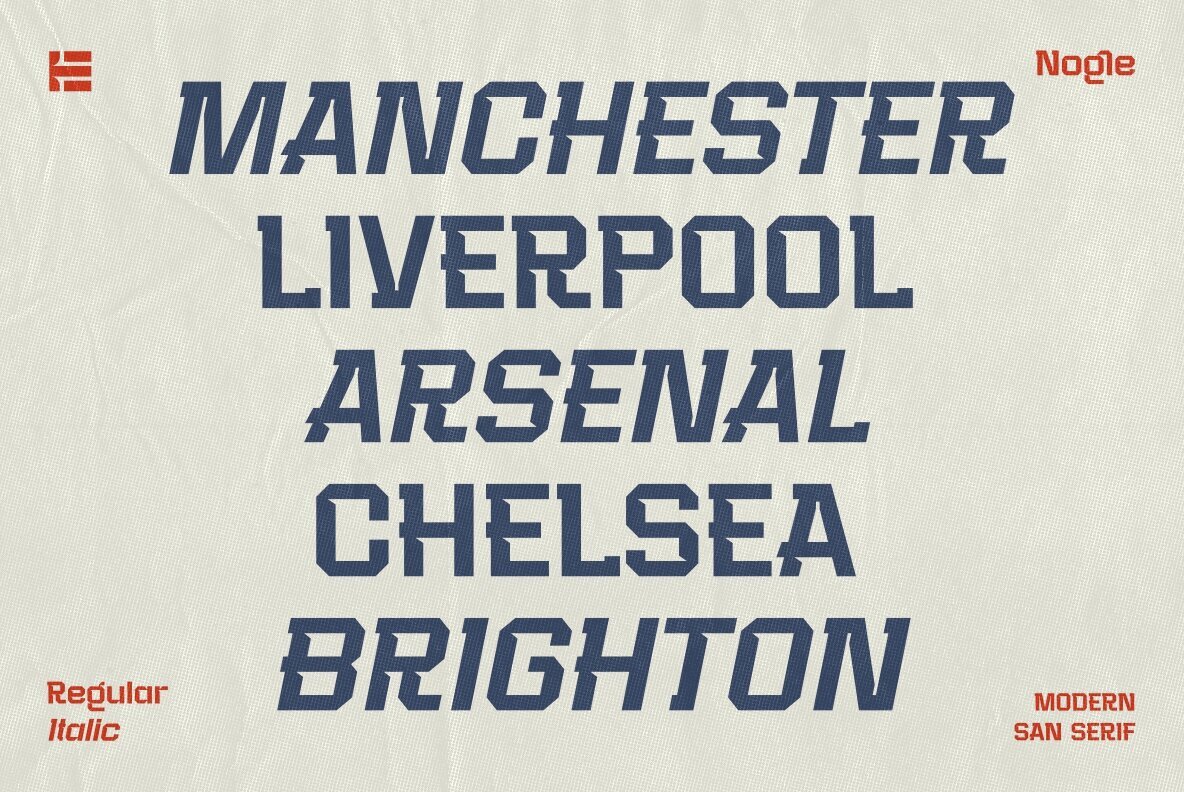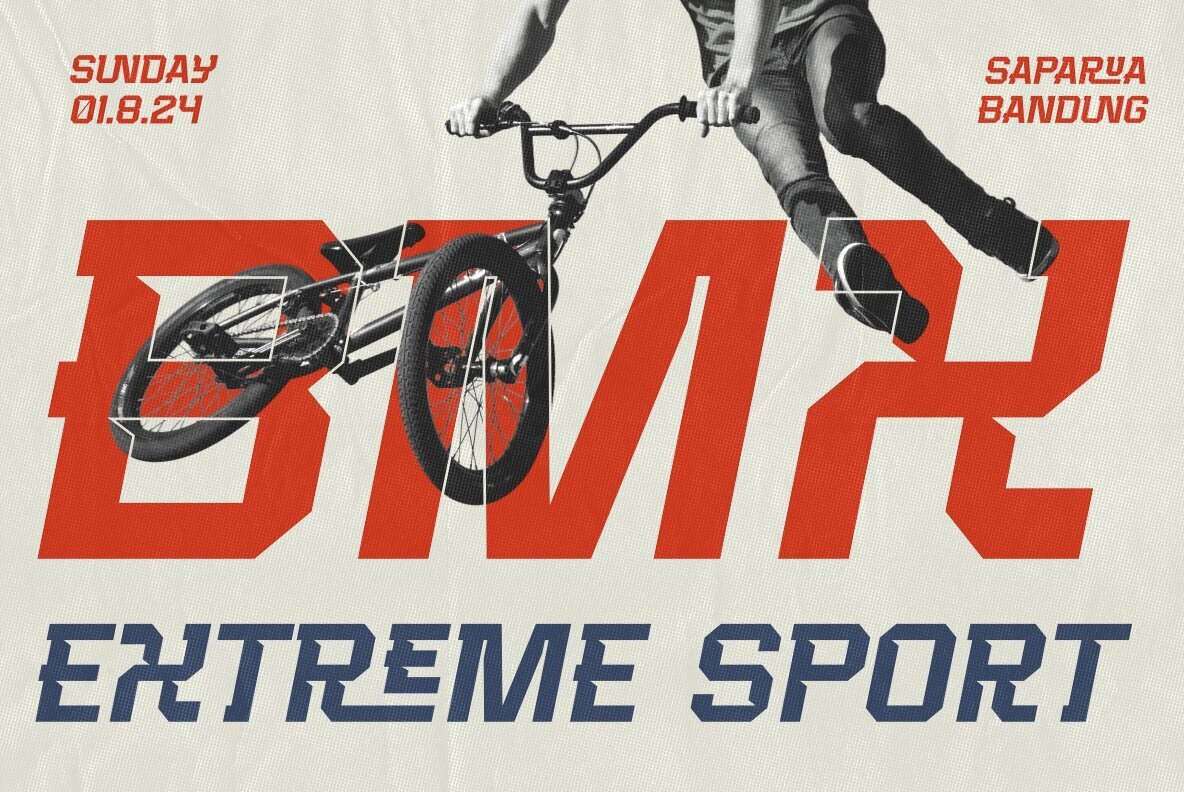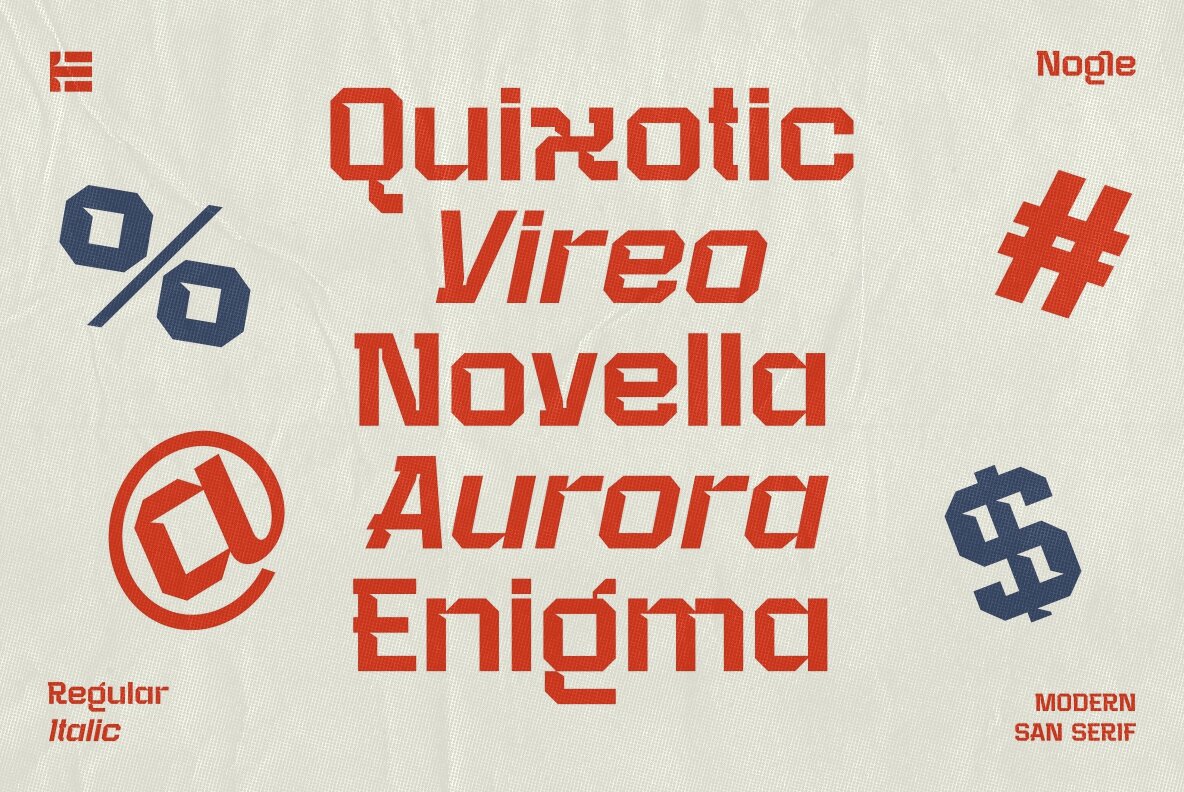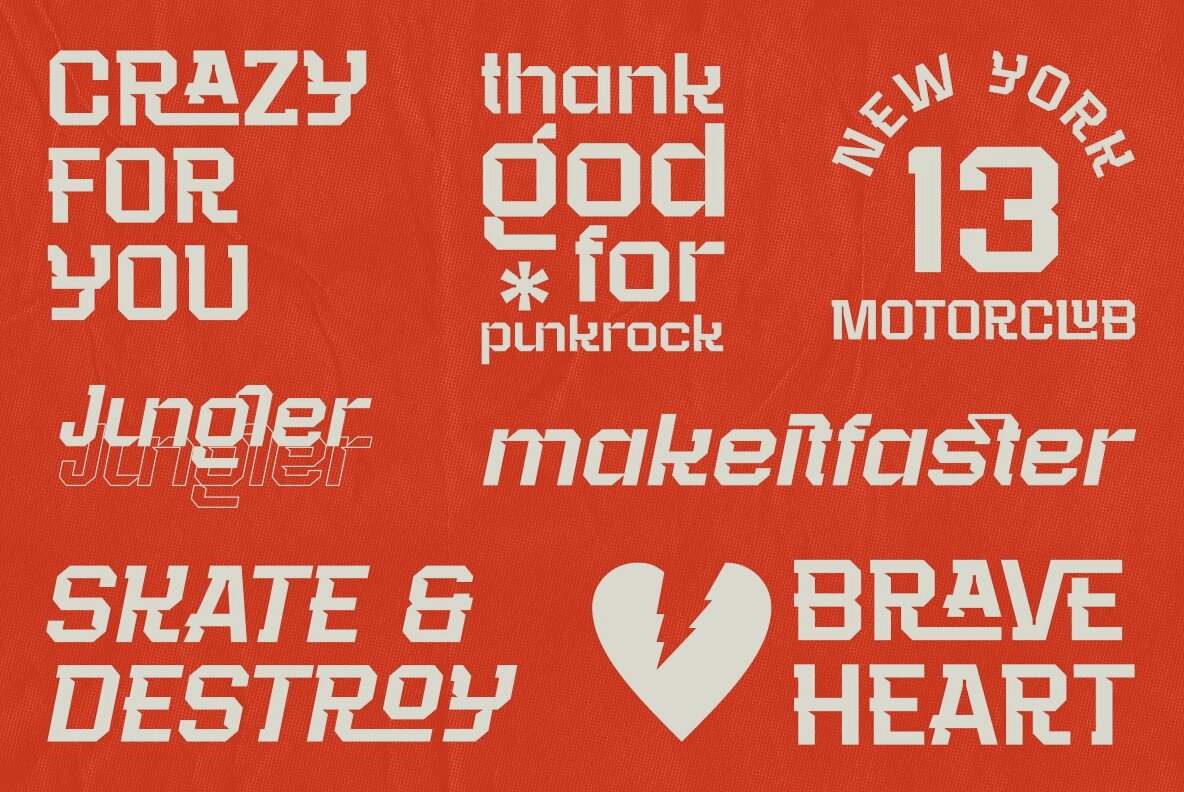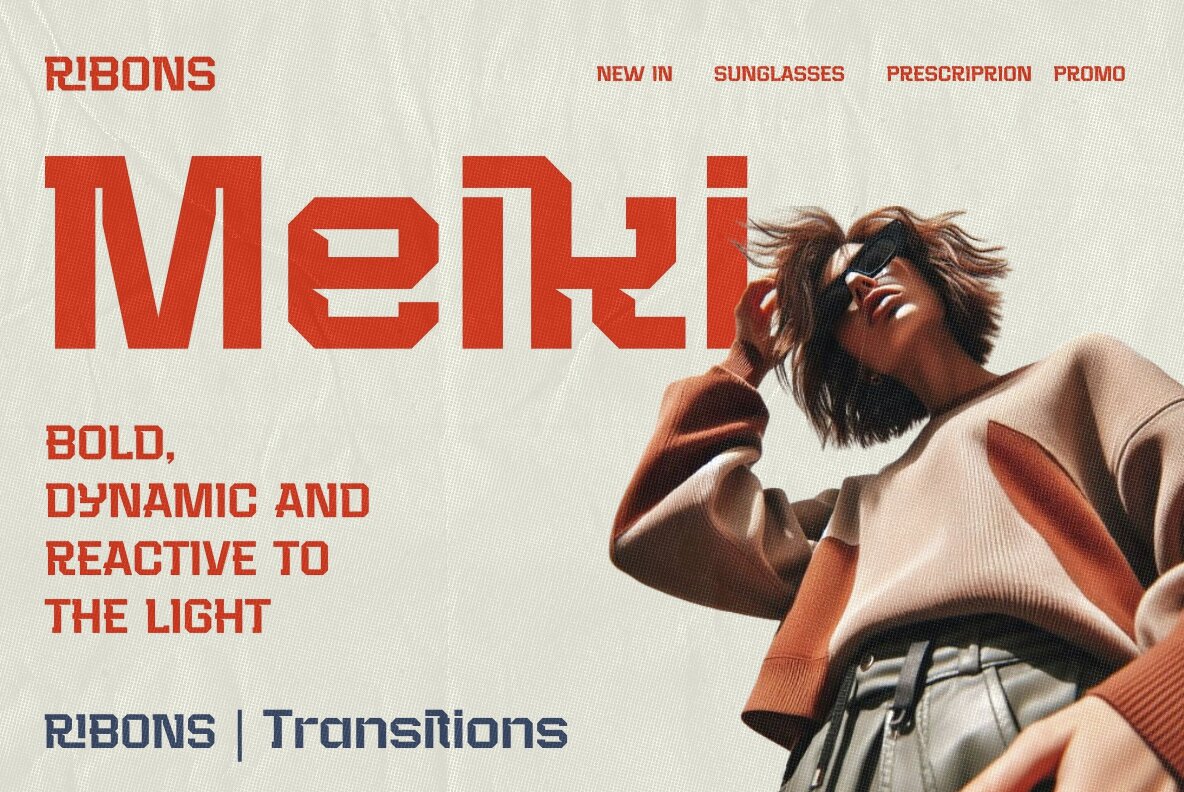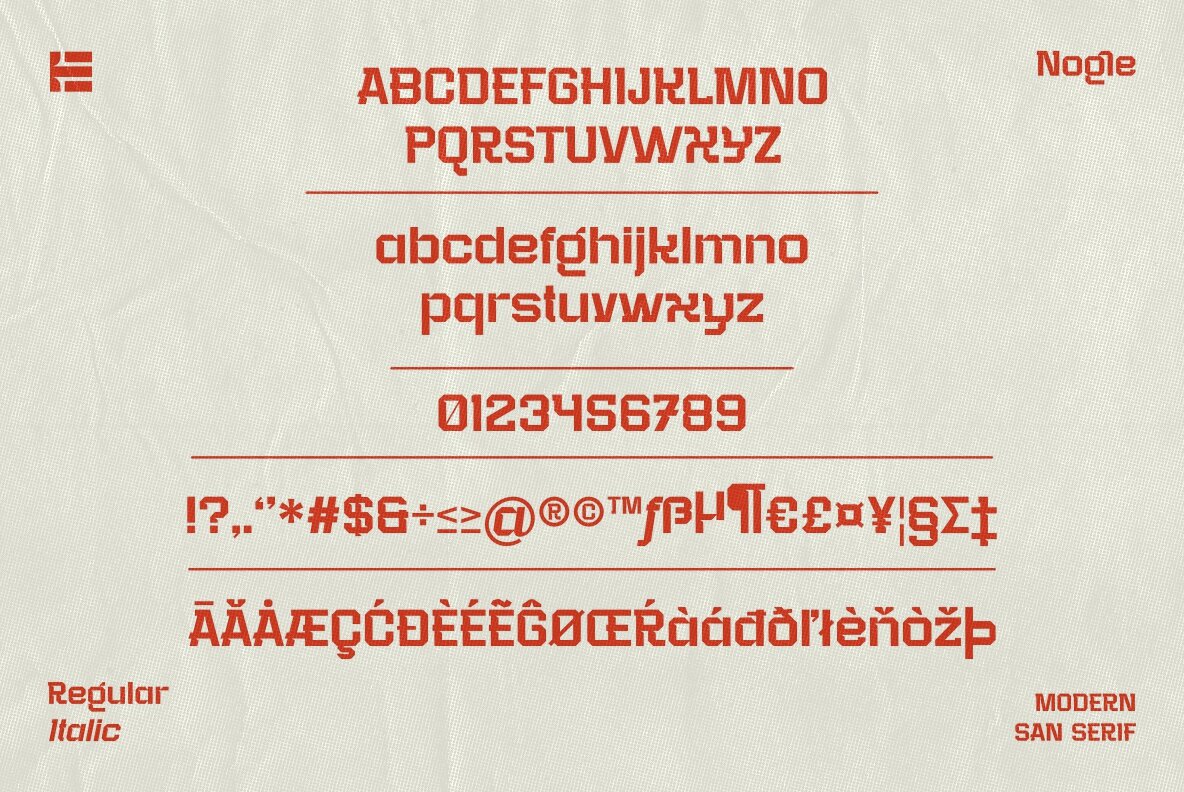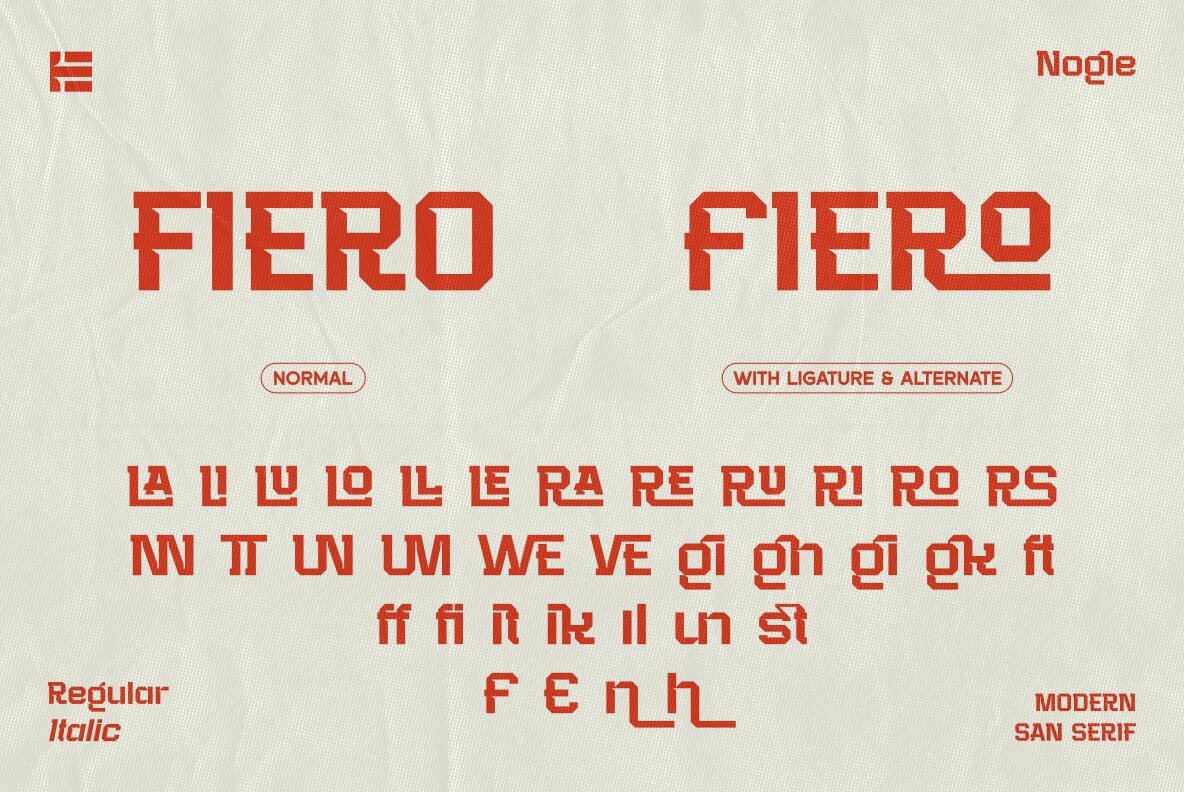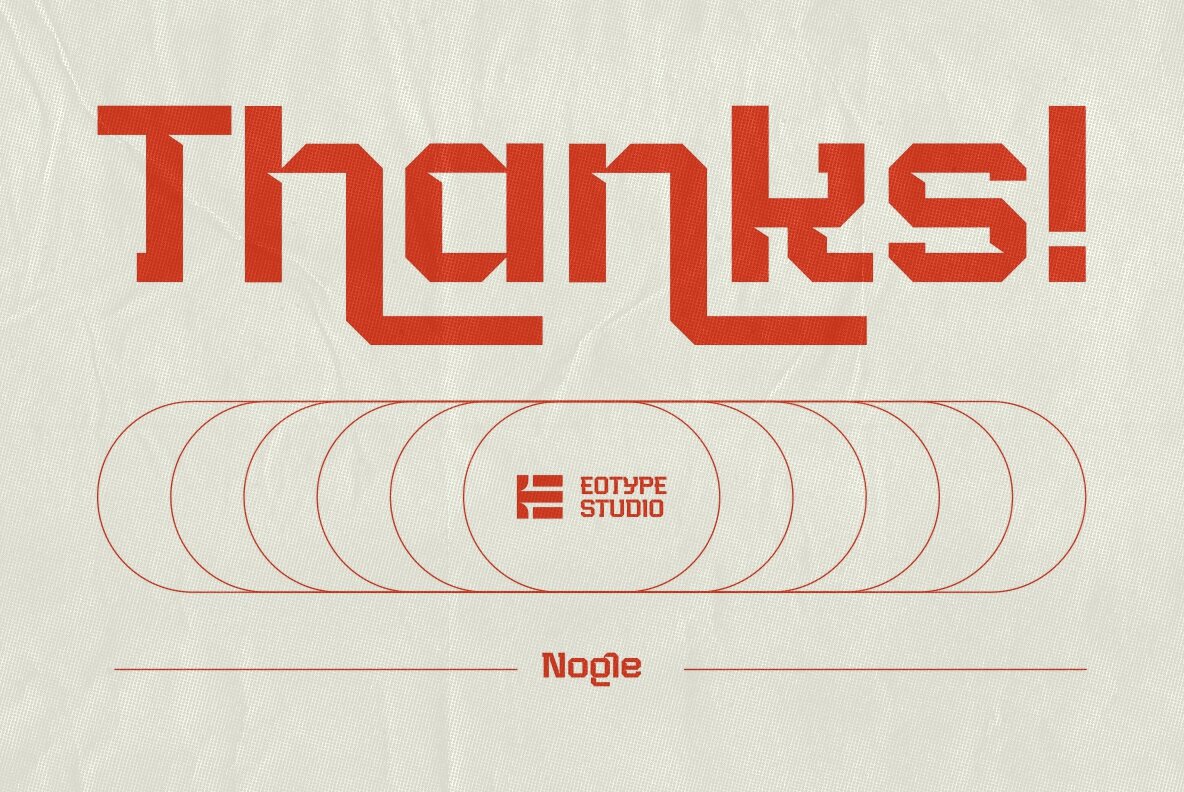
Nogle Font
Nogle Regular
Nogle Italic
Nogle is a sans-serif display font designed to infuse dynamic energy and bold, clean design into any project, making it ideal for athletic brands, sportswear, and event promotions. Its strong, angular lines and wide letterforms create a solid, impactful presence that conveys strength and movement. The font's design includes sharp edges and slightly condensed shapes that contribute to an overall sense of speed and action.
This typeface also incorporates subtle stylized elements like slanted angles or italicized forms to enhance the sense of motion and competitiveness. Nogle's powerful, energetic, and modern look makes it perfect for creating engaging visuals that resonate with active and youthful audiences. Whether for branding, advertising, or promotional materials, this font will elevate your designs with its contemporary and robust character.